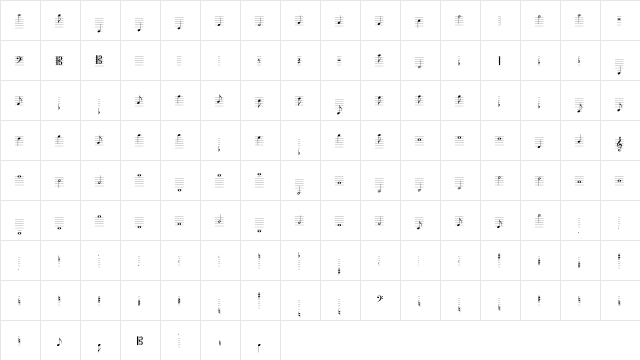
Lassus Regular
Design Context for Lassus Typeface
Lassus takes a measured approach to typography — its balanced proportions and neutral character make it a reliable workhorse for both digital and print work.